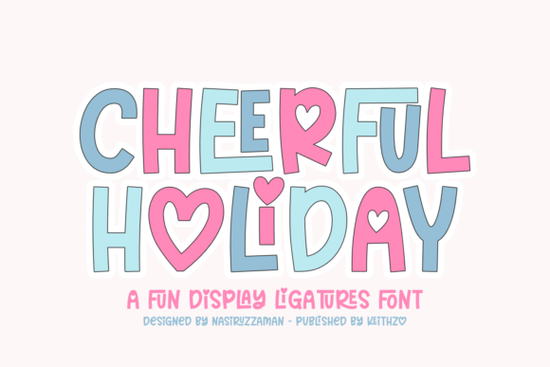
Looking for a font that brings a smile to your face and adds a cheerful vibe to your designs? The Cheerful Holiday Font is perfect for anyone wanting to infuse their projects with a sense of joy and playfulness. Whether you're working on holiday cards, T-shirt designs, or children's books, this all-caps typeface delivers a vibrant, eye-catching look that’s hard to ignore.
Designed with bold, curved strokes and a lively color palette, the Cheerful Holiday Font captures the essence of celebration and fun. It works well for any project that needs an extra touch of charm, from birthday invitations to festive greetings. Its friendly and approachable style makes it ideal for brands that want to connect with their audience in a warm and inviting way.
If you're a designer, crafter, or print-on-demand seller, this font can help you stand out. It’s especially useful for creating eye-catching graphics for stickers, vinyl crafts, and sublimation products. The font’s playful nature also makes it a great choice for rustic farmhouse themes or Kindergarten learning materials, where a little bit of whimsy goes a long way.
Why Choose the Cheerful Holiday Font?
The Cheerful Holiday Font is more than just a pretty design it’s a tool that helps you communicate emotion through typography. Its unique style adds a sense of warmth and positivity to any project. Here are a few reasons why it might be the right choice for you:
- Vibrant and expressive: The font’s bold curves and bright colors make it perfect for attention-grabbing designs.
- Versatile use: From greeting cards to children’s book covers, it adapts well to different creative needs.
- Easy to use: As an all-caps font, it’s straightforward to implement in most design software.
How to Use the Cheerful Holiday Font
Whether you’re working on a personal project or a client’s design, the Cheerful Holiday Font offers a range of applications. For example, it’s excellent for:
- Creating festive holiday decorations and banners
- Designing birthday cards and party invitations
- Adding a playful touch to children’s books or educational materials
- Enhancing the visual appeal of T-shirts, mugs, and other merchandise
Its all-caps format ensures clarity and readability, making it a reliable choice for both digital and print projects. You can pair it with simpler fonts to balance the design and create a more dynamic layout.
When selecting a font, consider the tone and message you want to convey. The Cheerful Holiday Font is ideal for projects that aim to spread joy and positivity. It’s also a great option if you're looking for something that feels fresh and modern without being too serious.
As you experiment with different fonts, keep in mind that the right choice can make a big difference in how your design is perceived. The Cheerful Holiday Font is a strong contender if you're aiming for a fun, friendly, and visually appealing look.
If you're looking for a font that brings a smile to your work, the Cheerful Holiday Font is definitely worth trying. Its playful style and versatility make it a valuable addition to any designer’s toolkit.
Remember, the best fonts are those that enhance your message and resonate with your audience. With the Cheerful Holiday Font, you’ll have a powerful tool to express joy and creativity in your designs.